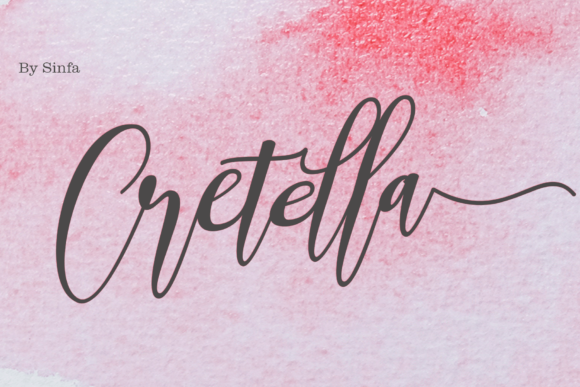
The Perfect Combination of Elegance and Whimsy: Cretella Font
As a designer, there’s nothing quite like the feeling of discovering a new font that perfectly captures the essence of your latest project. For me, that moment came when I stumbled upon the enchanting Cretella Font. Its delicate, handwritten curves and classic flair instantly sparked a vision of a beautiful, one-of-a-kind design.
With its unique blend of timeless elegance and authentic calligraphy, Cretella Font is the perfect tool for designers seeking to add a touch of sophistication and whimsy to their work. This beautifully crafted font is designed to evoke a sense of warmth and friendliness, making it an ideal choice for projects where a personal touch is essential.
What sets Cretella Font apart is its wealth of special features, including alternate glyphs and ligatures, which allow designers to add an extra layer of personality to their designs. Whether you’re a seasoned pro or just starting out, Cretella Font is sure to inspire your creativity and help you create truly outstanding designs.
Cretella Font Key Features
- Font Family: Cretella is a typeface family that includes 4 font styles: Regular, Italic, Bold, and Bold Italic.
- Unique Characteristics: Cretella features a unique blend of modern and classic design elements, with a focus on legibility and readability.
- Kerning and Glyphs: Includes advanced kerning and glyph features, ensuring seamless font rendering and accurate typography.
Cretella Font Review
Cretella Font, a font designed to evoke the feel of handwritten notes and sketches. ✨ I have to say, it does a great job of capturing that organic, imperfect quality that’s perfect for adding a touch of personality to your designs.
- ✨ Unique, cursive feel that’s both elegant and imperfect
- ✨ Wide range of weights and styles to choose from, making it easy to customize for different designs
- ✨ Supports a wide range of languages, making it a great choice for international projects
- ⚠️ May be difficult to read at very small font sizes due to its cursive nature
- ⚠️ Some characters may not be available in all weights or styles, which can be frustrating when trying to create a consistent look
Overall, I think Cretella Font is a great choice for designers who want to add a personal touch to their work. While it may have some limitations, its unique feel and customization options make it a valuable addition to any design toolkit.
For optimal results, use Cretella Font in conjunction with elegant and minimalist design elements. Common use cases include:
– Invitations and event materials
– Luxury brand marketing materials
– High-end product packaging